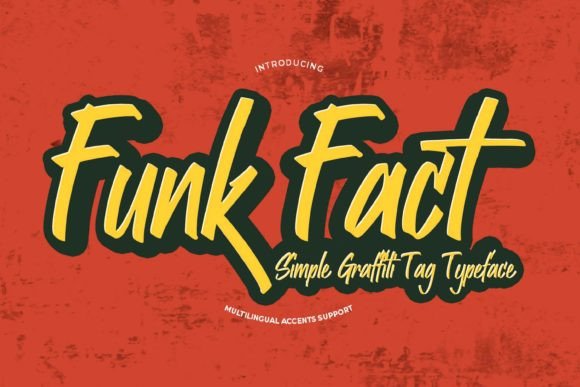
Funk Fact Font: Elevate Your Designs with a Graffiti-Style Typeface
In the world of typography, fonts play a crucial role in conveying the tone and personality of a design. For creative projects that demand a unique and eye-catching look, the Funk Fact Font is an excellent choice. This simple graffiti-style typeface combines a naturally textured style with a classy look, making it perfect for a wide range of applications.
What is Funk Fact Font?
Funk Fact Font is a modern, urban-style calligraphy typeface that boasts a distinctive look. Its dramatic movement and textured style give it a fresh, edgy feel that’s perfect for designs that require a bit of attitude. Whether you’re working on a logo, printed quote, invitation, or product packaging, Funk Fact Font is sure to make a statement.
Key Features of Funk Fact Font
- Naturally Textured Style: Funk Fact Font features a unique, textured style that gives it a organic, hand-crafted feel.
- Classy Look: Despite its graffiti-inspired roots, Funk Fact Font exudes a sense of class and sophistication, making it suitable for a wide range of applications.
- Dramatic Movement: The font’s dramatic movement adds a sense of energy and dynamism to any design.
- Urban-Style Calligraphy: Funk Fact Font is perfect for designs that require an urban, edgy feel.
Uses of Funk Fact Font
Funk Fact Font is an incredibly versatile typeface that can be used in a variety of creative projects. Here are some ideas to get you started:
- Logos: Create a memorable logo for your brand with Funk Fact Font’s unique, eye-catching style.
- Printed Quotes: Add a touch of personality to your printed quotes with Funk Fact Font’s dramatic movement and textured style.
- Invitations: Make your invitations stand out with Funk Fact Font’s classy, urban-style calligraphy.
- Cards: Add a personal touch to your cards with Funk Fact Font’s distinctive look.
- Product Packaging: Elevate your product packaging with Funk Fact Font’s modern, edgy feel.
- Headers: Use Funk Fact Font to create striking headers for your website, blog, or social media channels.
- Watermark on Photography: Add a professional touch to your photographs with Funk Fact Font’s subtle, textured style.
- Advertisements: Create eye-catching advertisements with Funk Fact Font’s bold, attention-grabbing style.
- Product Designs: Incorporate Funk Fact Font into your product designs for a unique, urban look.
- Stationery: Upgrade your stationery with Funk Fact Font’s classy, sophisticated style.
- Wedding Designs: Add a touch of personality to your wedding designs with Funk Fact Font’s romantic, urban-style calligraphy.
Why Choose Funk Fact Font?
With so many fonts available, why choose Funk Fact Font? Here are just a few reasons:
- Unique Style: Funk Fact Font boasts a distinctive, one-of-a-kind style that’s sure to set your designs apart.
- Versatility: This font is incredibly versatile, making it suitable for a wide range of applications.
- High-Quality: This font is designed to deliver high-quality results, ensuring your designs look professional and polished.
Tips for Using Funk Fact Font
To get the most out of Funk Fact Font, here are a few tips:
- Experiment with Colors: Funk Fact Font looks great in a variety of colors, so don’t be afraid to experiment and find the perfect hue for your design.
- Play with Texture: The font’s textured style is a key part of its appeal, so try combining it with other textures for added depth and interest.
- Use it as a Statement Piece: Funk Fact Font is bold and attention-grabbing, so use it as a statement piece to draw attention to your design.
- Pair it with Other Fonts: For added visual interest, try pairing Funk Fact Font with other fonts that complement its style.
Funk Fact Font is a unique and versatile typeface that’s perfect for creative projects that demand a bold, urban-style look. With its naturally textured style, classy look, and dramatic movement, this font is sure to elevate your designs and make them stand out from the crowd. Whether you’re working on a logo, printed quote, invitation, or product packaging, Funk Fact Font is an excellent choice.